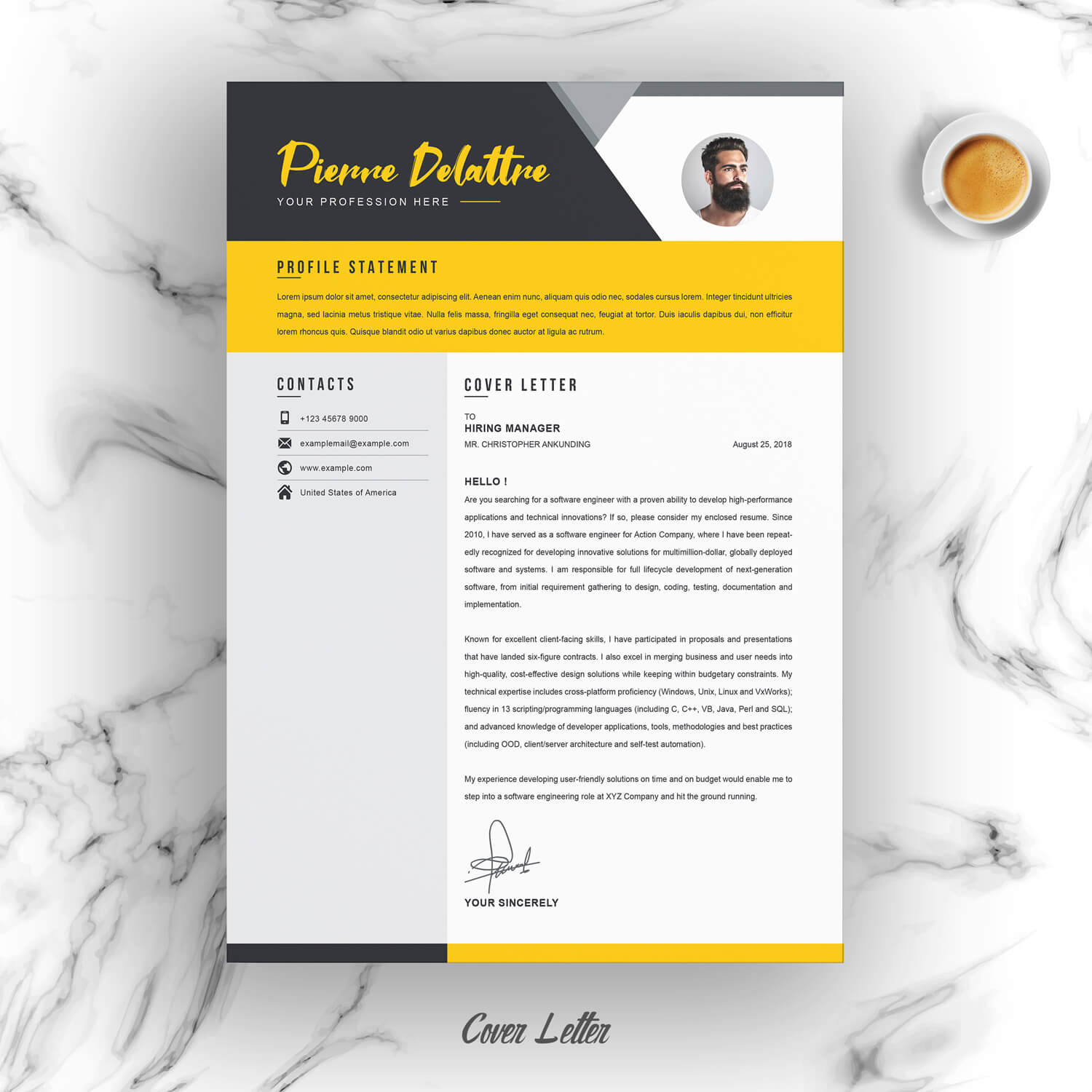
Best Font For Cover Letter 2021 . The most popular choices include times. Save your file as a pdf to. Selecting the right cover letter font can impress the hiring manager and impact your job application. Your choice of cover letter font ultimately comes down to two basic font types: A serif is a decorative flourish, a small line or stroke added to the letters of the alphabet. Avoid stylistic options and anything that includes special characters. This font is classic and professional, making it a great choice for traditional industries. Fonts to avoid include comic sans, courier, papyrus, and any other script with an overly. The best font for a cover letter is times new roman. One popular font choice for cover letters is times new roman. Some of the best fonts for a cover letter include arial, calibri, garamond, helvetica, and cambria. The best font for a cover letter should be simple, clear, and match the font you use in your resume. Use a simple and modern font for your cover letter in size 10, 11 or 12 point font size. It’s a classic serif typeface that’s been in use for over 85 years. Learn how to choose the best font for your introductory letter.
The best font for a cover letter should be simple, clear, and match the font you use in your resume. A serif is a decorative flourish, a small line or stroke added to the letters of the alphabet. The best font for a cover letter is times new roman. Fonts to avoid include comic sans, courier, papyrus, and any other script with an overly. Some of the best fonts for a cover letter include arial, calibri, garamond, helvetica, and cambria. This font is classic and professional, making it a great choice for traditional industries. One popular font choice for cover letters is times new roman. Avoid stylistic options and anything that includes special characters. It’s a classic serif typeface that’s been in use for over 85 years. Selecting the right cover letter font can impress the hiring manager and impact your job application.
Best Font For Cover Letter 2021 Learn how to choose the best font for your introductory letter. Fonts to avoid include comic sans, courier, papyrus, and any other script with an overly. The most popular choices include times. Use a simple and modern font for your cover letter in size 10, 11 or 12 point font size. Save your file as a pdf to. The best font for a cover letter should be simple, clear, and match the font you use in your resume. Learn how to choose the best font for your introductory letter. Selecting the right cover letter font can impress the hiring manager and impact your job application. Your choice of cover letter font ultimately comes down to two basic font types: It’s a classic serif typeface that’s been in use for over 85 years. Avoid stylistic options and anything that includes special characters. A serif is a decorative flourish, a small line or stroke added to the letters of the alphabet. This font is classic and professional, making it a great choice for traditional industries. Some of the best fonts for a cover letter include arial, calibri, garamond, helvetica, and cambria. One popular font choice for cover letters is times new roman. The best font for a cover letter is times new roman.
How to Format a Cover Letter Examples for 2024 Best Font For Cover Letter 2021 Save your file as a pdf to. The best font for a cover letter is times new roman. One popular font choice for cover letters is times new roman. The best font for a cover letter should be simple, clear, and match the font you use in your resume. A serif is a decorative flourish, a small line or stroke. Best Font For Cover Letter 2021.
Modern cover letter format example. in 2021 Cover letter format, Cover letter, Cover letter help Best Font For Cover Letter 2021 Selecting the right cover letter font can impress the hiring manager and impact your job application. The best font for a cover letter is times new roman. Avoid stylistic options and anything that includes special characters. It’s a classic serif typeface that’s been in use for over 85 years. This font is classic and professional, making it a great choice. Best Font For Cover Letter 2021.
7 Best Font For Cover Letter 2021 A serif is a decorative flourish, a small line or stroke added to the letters of the alphabet. The most popular choices include times. One popular font choice for cover letters is times new roman. Save your file as a pdf to. Your choice of cover letter font ultimately comes down to two basic font types: Some of the best. Best Font For Cover Letter 2021.
25+ Cover Letter Samples 2021 Letter Reference Best Font For Cover Letter 2021 Some of the best fonts for a cover letter include arial, calibri, garamond, helvetica, and cambria. Selecting the right cover letter font can impress the hiring manager and impact your job application. One popular font choice for cover letters is times new roman. This font is classic and professional, making it a great choice for traditional industries. It’s a classic. Best Font For Cover Letter 2021.
26+ Best Font For Cover Letter letterly.info Best Font For Cover Letter 2021 Learn how to choose the best font for your introductory letter. The best font for a cover letter should be simple, clear, and match the font you use in your resume. Save your file as a pdf to. Selecting the right cover letter font can impress the hiring manager and impact your job application. Avoid stylistic options and anything that. Best Font For Cover Letter 2021.
How To Write The Best Cover Letter 2021 With Template And Sample Best Font For Cover Letter 2021 Use a simple and modern font for your cover letter in size 10, 11 or 12 point font size. The best font for a cover letter is times new roman. One popular font choice for cover letters is times new roman. Learn how to choose the best font for your introductory letter. This font is classic and professional, making it. Best Font For Cover Letter 2021.
26+ Best Font For Cover Letter letterly.info Best Font For Cover Letter 2021 Some of the best fonts for a cover letter include arial, calibri, garamond, helvetica, and cambria. Learn how to choose the best font for your introductory letter. Fonts to avoid include comic sans, courier, papyrus, and any other script with an overly. This font is classic and professional, making it a great choice for traditional industries. The best font for. Best Font For Cover Letter 2021.
26+ Best Font For Cover Letter Cover letter for resume, Writing a cover letter, Resume cover Best Font For Cover Letter 2021 The most popular choices include times. Some of the best fonts for a cover letter include arial, calibri, garamond, helvetica, and cambria. A serif is a decorative flourish, a small line or stroke added to the letters of the alphabet. Selecting the right cover letter font can impress the hiring manager and impact your job application. One popular font choice. Best Font For Cover Letter 2021.
How To Write A Very Good Cover Letter 2021 in 2021 Cover letter for resume, Writing a cover Best Font For Cover Letter 2021 It’s a classic serif typeface that’s been in use for over 85 years. Fonts to avoid include comic sans, courier, papyrus, and any other script with an overly. One popular font choice for cover letters is times new roman. A serif is a decorative flourish, a small line or stroke added to the letters of the alphabet. Learn how to. Best Font For Cover Letter 2021.